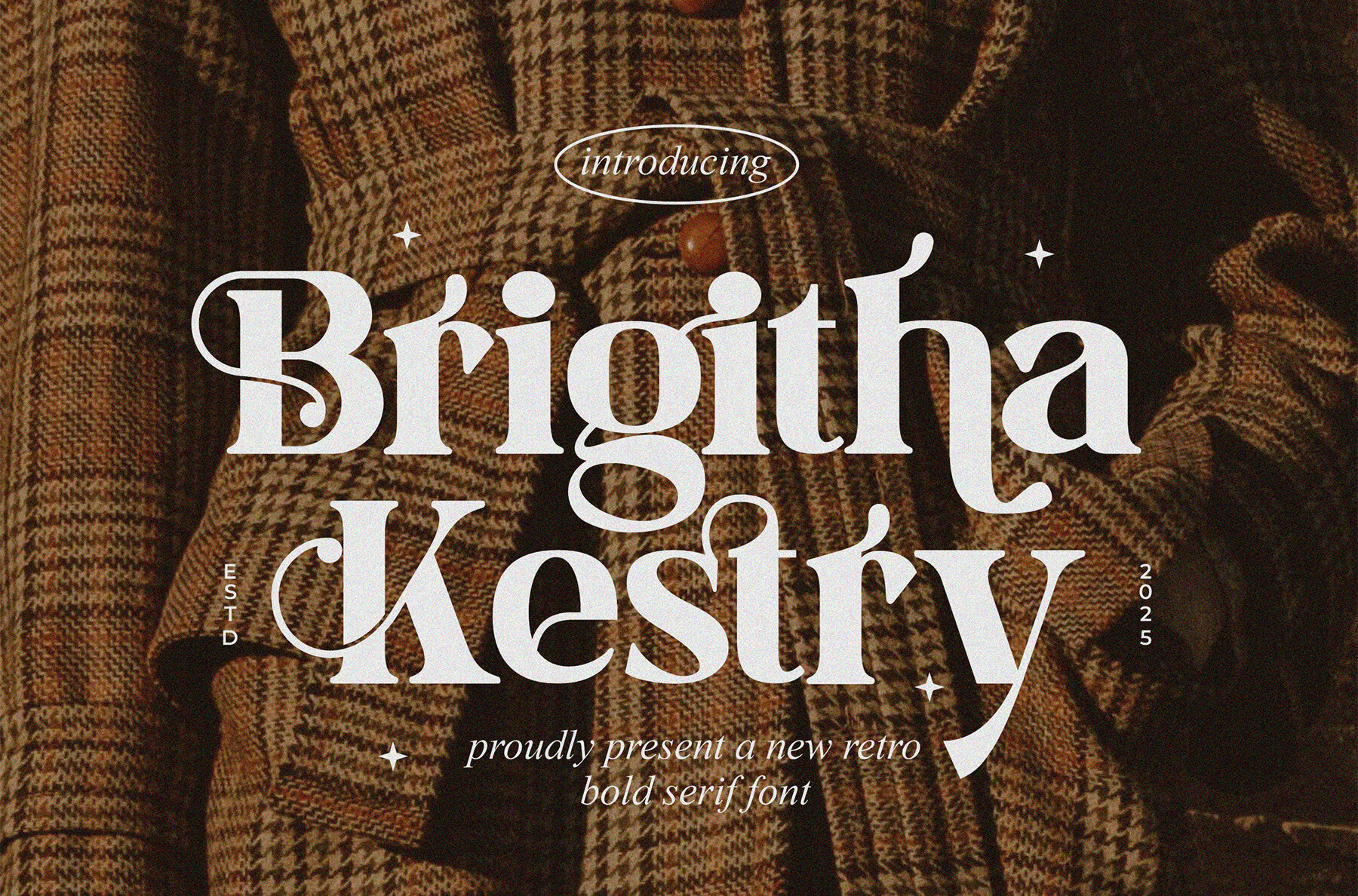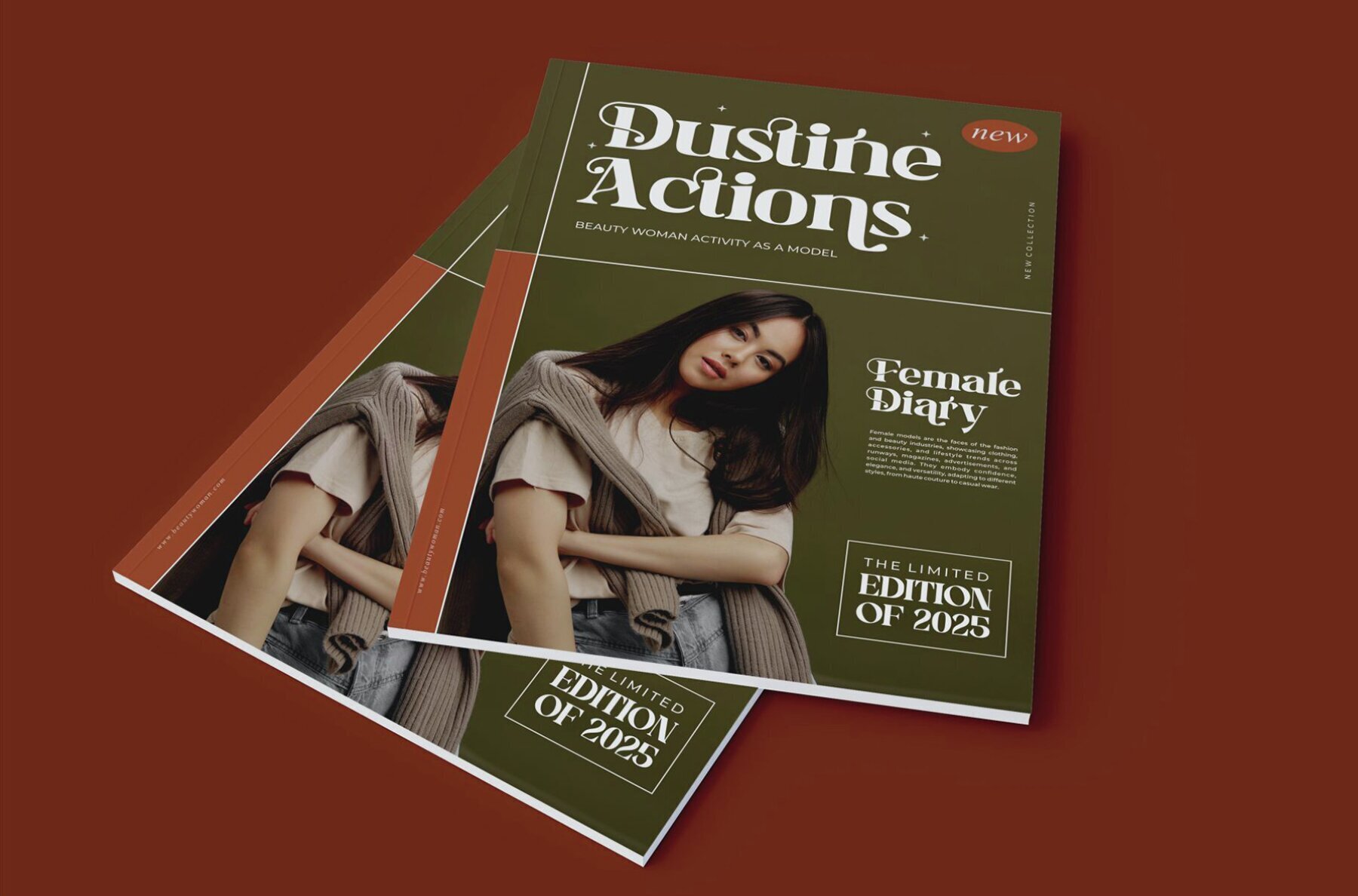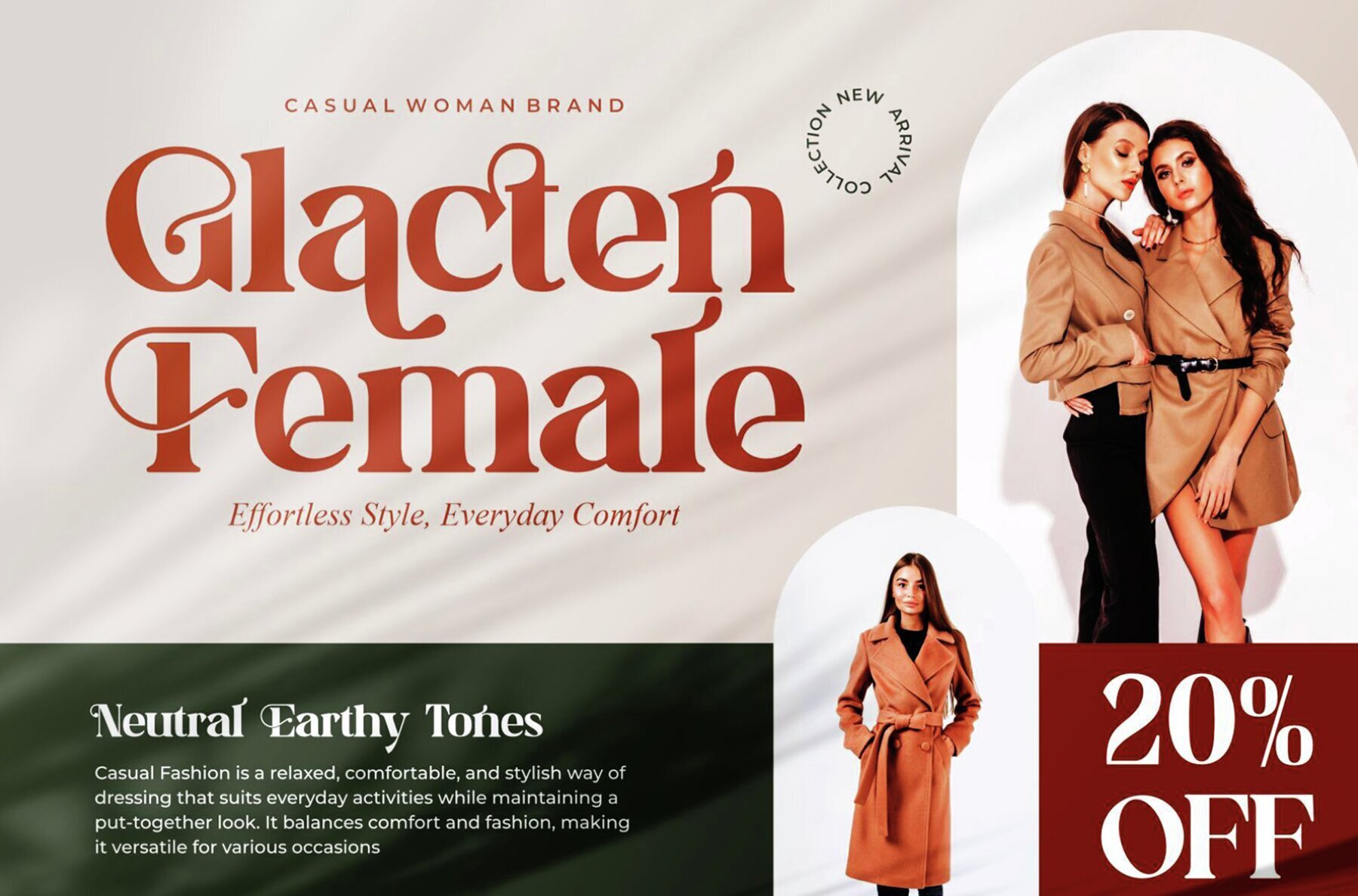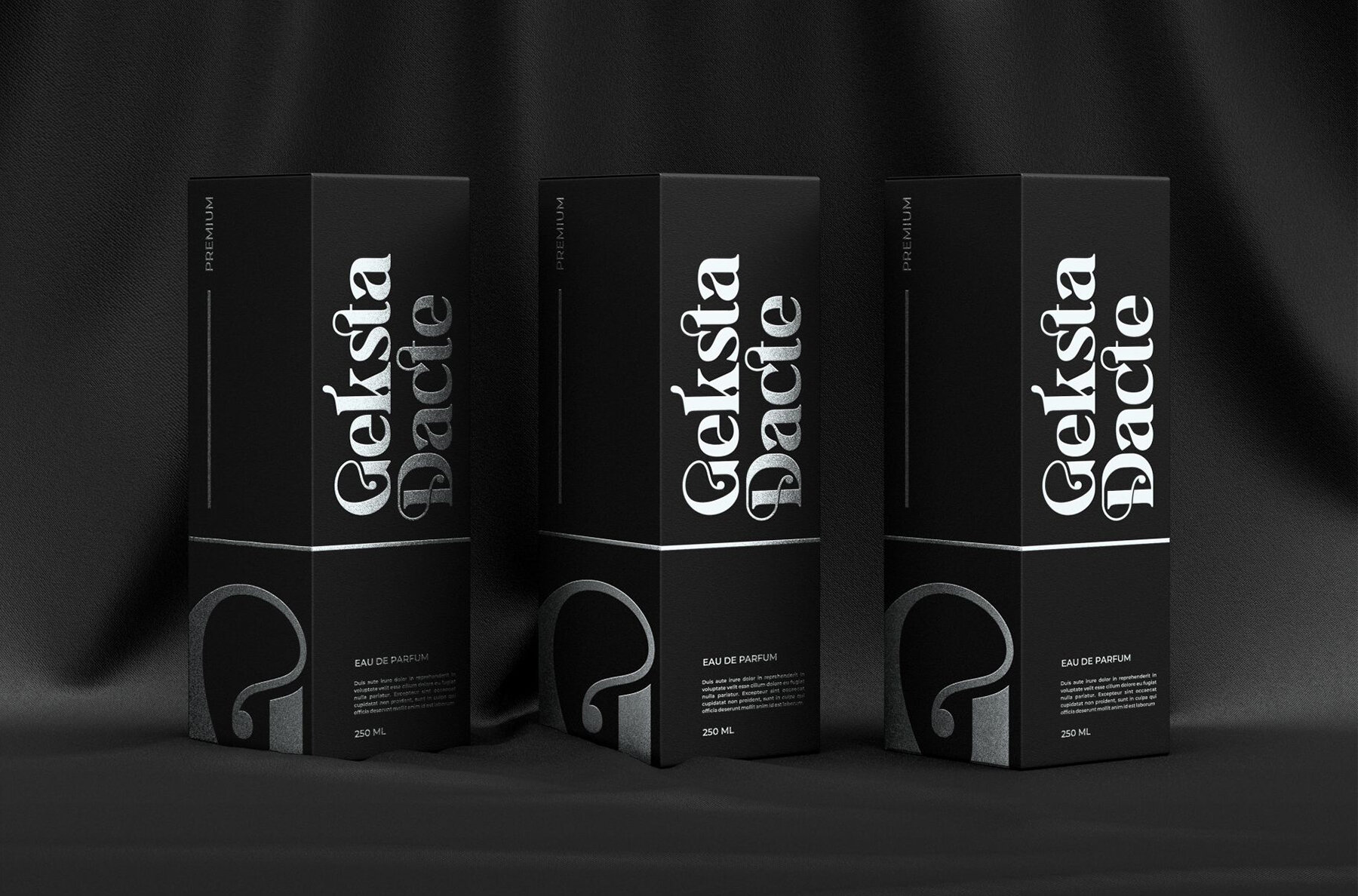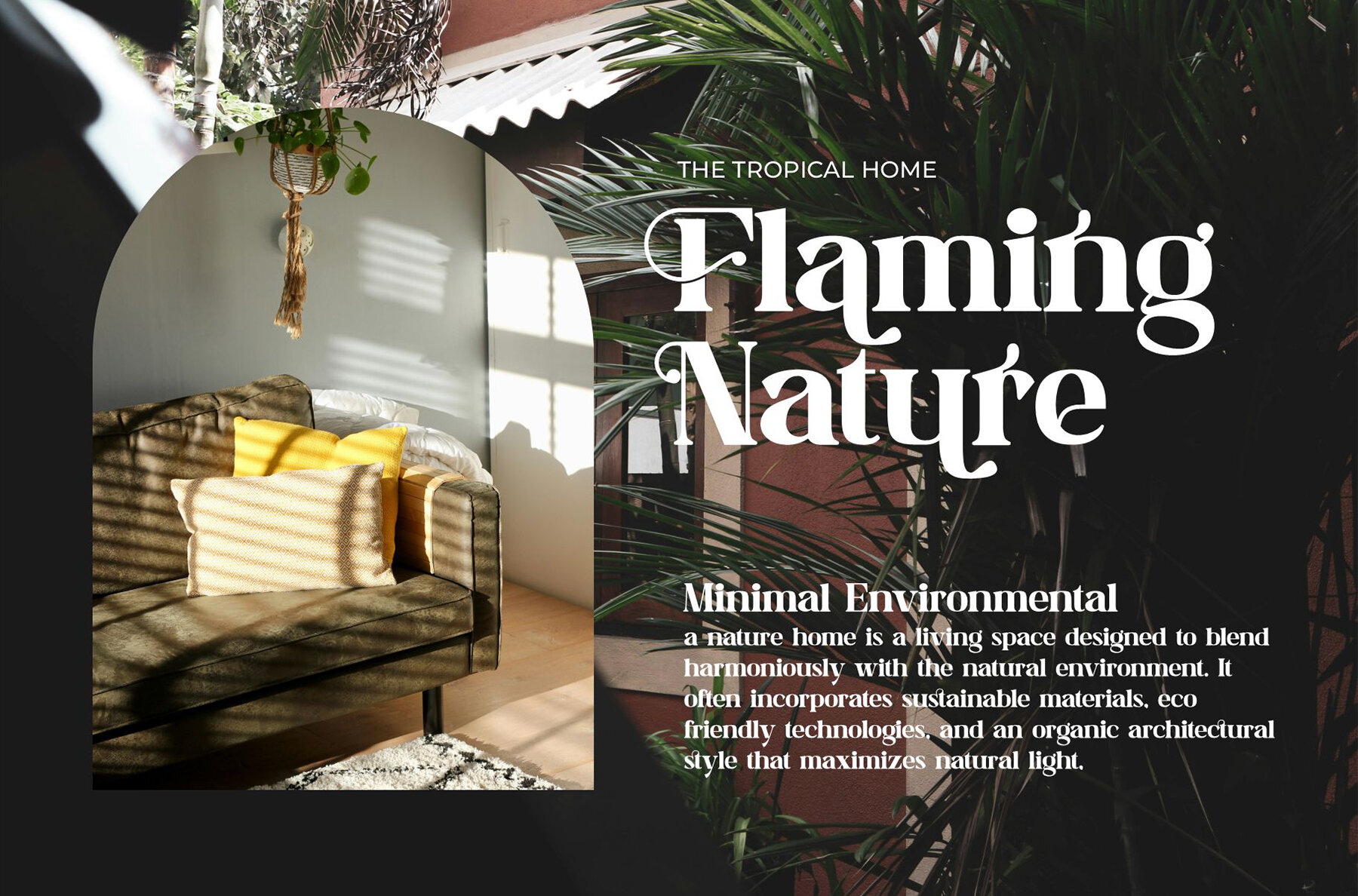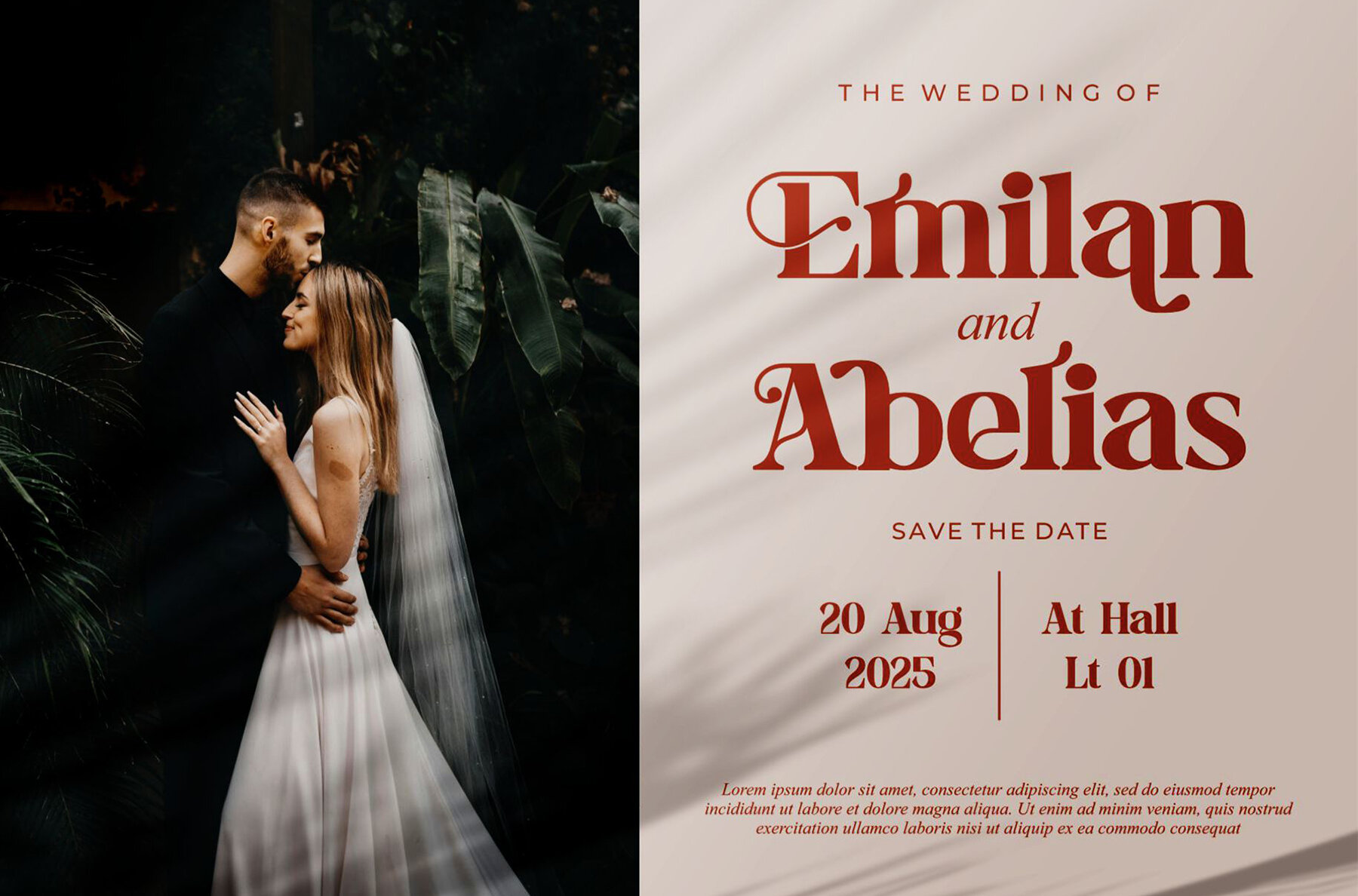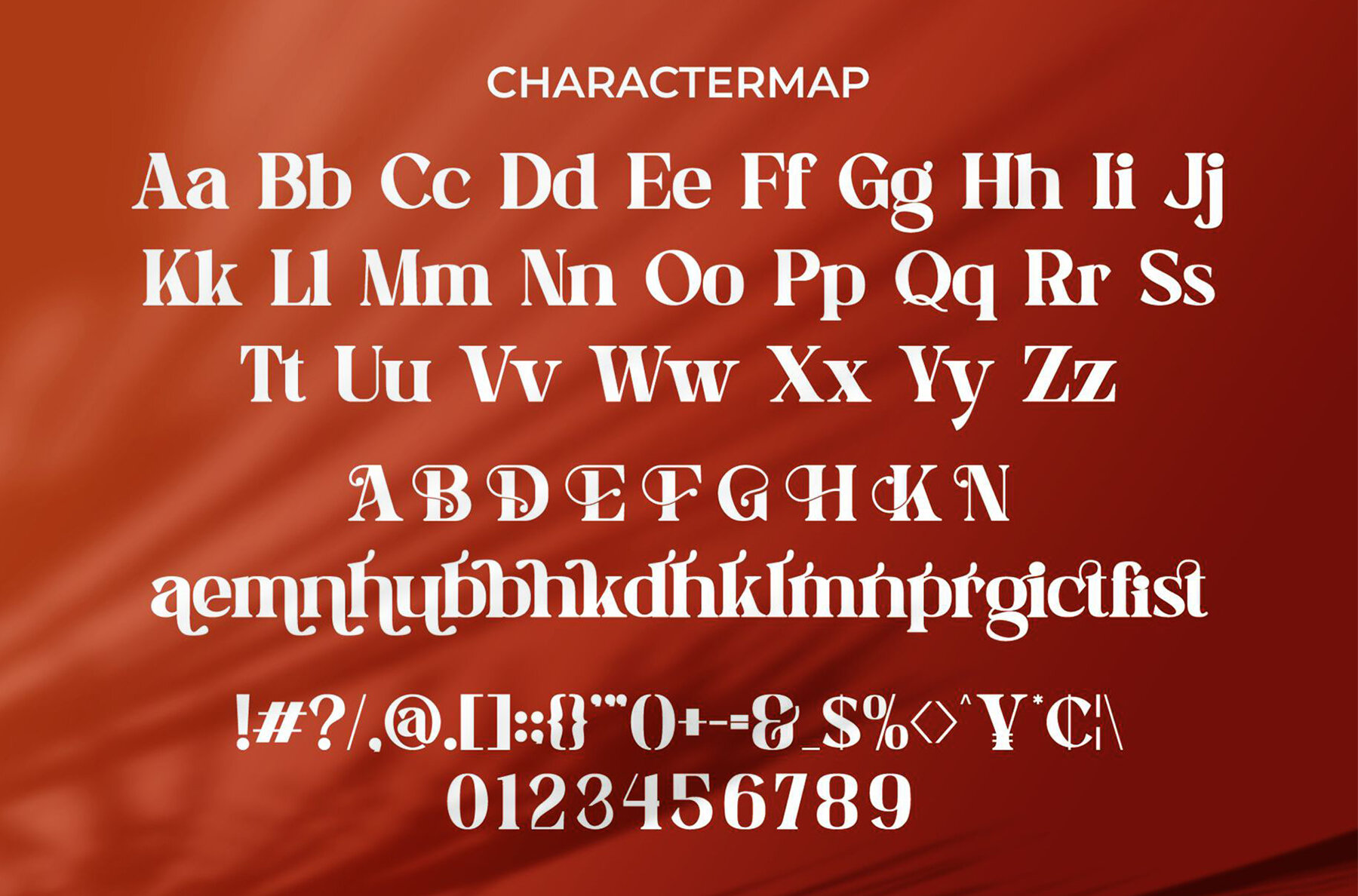
Brigitha Kestry Font
Brigitha Kestry
Experience the charming allure of Brigitha Kestry, a retro serif font with a lively and playful personality. Its distinctive wood-inspired character adds a touch of whimsy, making it a perfect choice for a variety of design projects. Whether you're crafting invitation cards, creating eye-catching company logos, or designing striking movie titles, Brigitha Kestry lends a unique flair to your work.Brigitha Kestry: Retro Serif Delight